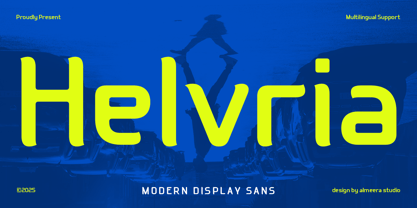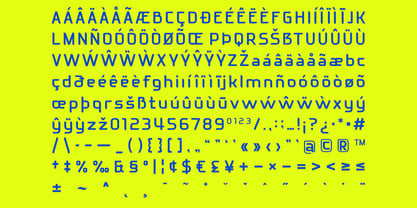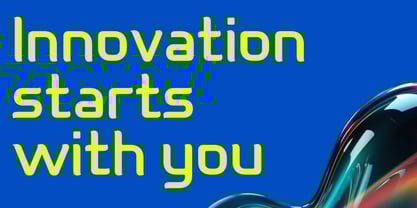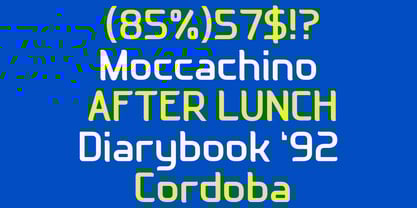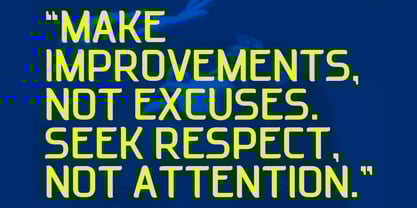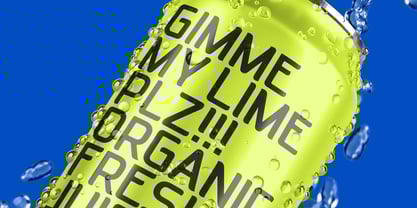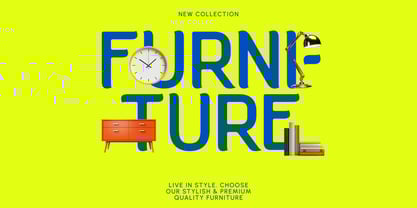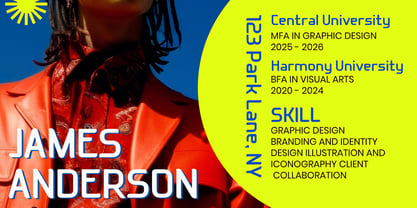
Helvria
Die Schriftfamilie Helvria wurde von Rinto Dwi Nugroho entworfen und von Almeera Studio veröffentlicht. Helvria enthält 1 Stile.
Introducing Helvria - Modern display sans font. Helvria is a modern display san serif font, This type of font is very suitable for your various needs such as branding projects, logos, social media posts, advertisements, labels, product packaging, photography, wedding designs, watermarks, invitation product designs, stationery, and any project.
FEATURES:
- Uppercase
- Lowercase
- Multilingual support
- Punctuation
- Numerial